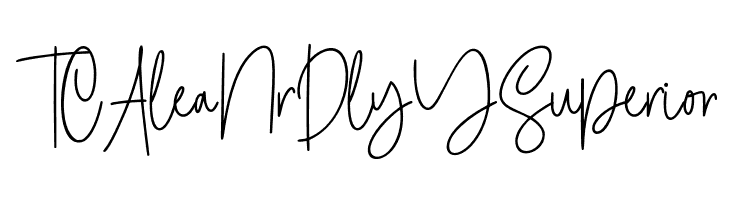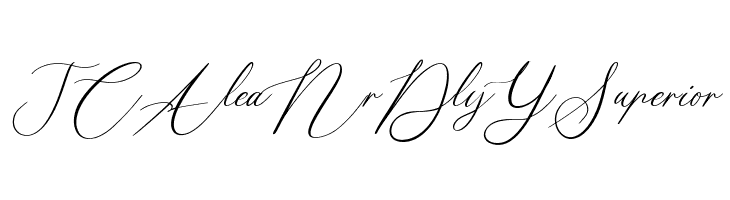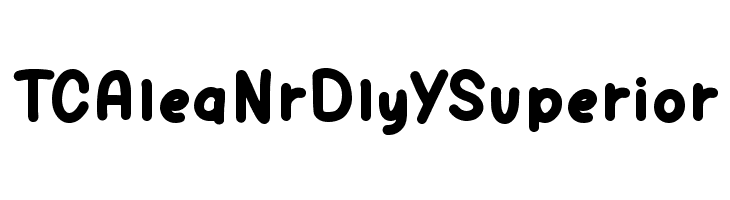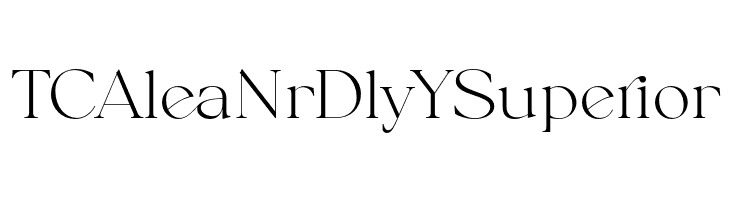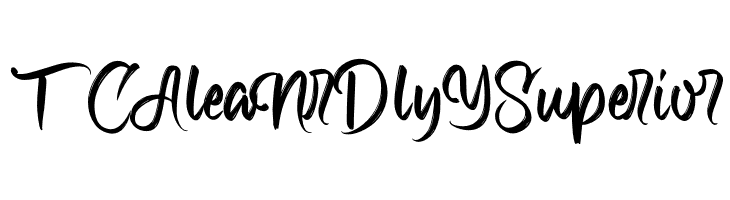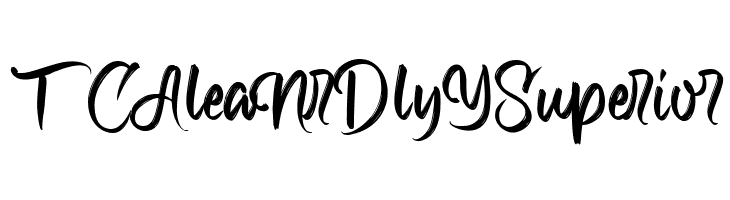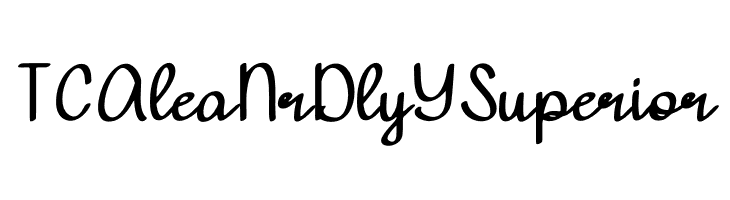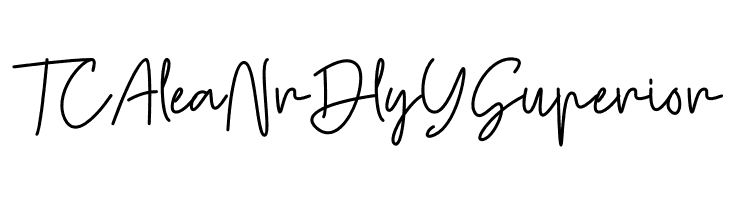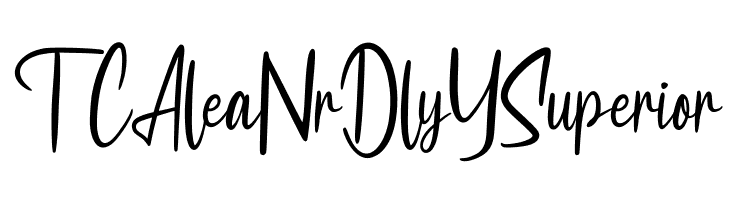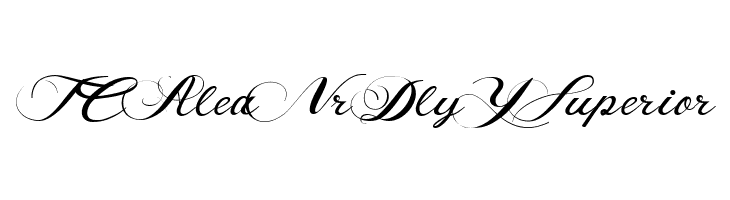
• Callatte
A playful, hand-drawn font with thin, flowing lines and a whimsical style.
• Calledliner
A playful handwritten font with flowing, interconnected letterforms and a casual style.
• Callephane
A playful, handwritten script font with smooth, rounded strokes.
• Callerious Free Regular
A flowing, cursive font with elegant, connected strokes.
• Callesta
A lively, expressive handwritten font with fluid strokes and dynamic style.
• Callesta
A lively handwritten font with fluid, expressive strokes.
• Callesta Swash
An elegant script font with flowing swashes and a handwritten feel.
• CallestaSwash
A flowing, elegant script with delicate swashes and a calligraphic feel.
• Callgios FREE
A bold, dynamic script font with flowing, cursive letterforms.
• CallgiosFREE
A bold, flowing script font with ornate curves and loops.
• Callheart
A cursive, handwritten font with elegant, flowing strokes.
• Calli Cat Regular
A playful, rounded font with bold, smooth curves and a friendly appearance.
• Calliandra-Demo
A playful, elegant script font with smooth, flowing lines and rounded edges.
• Callicotez
A bold, elegant script font with flowing, interconnected characters.
• callidar Regular
An elegant, cursive script font with decorative flourishes and high contrast.
• Callides
A dynamic handwritten font with fluid, expressive strokes and a playful tilt.
• Callie-Mae
A playful, rounded font with a modern and friendly appearance.
• Callie-Mae Bold
A bold, rounded font with a playful and modern aesthetic.
• Callie-Mae Bold Italic
A bold, italicized font with rounded, slightly condensed characters.
• Callie-Mae Italic
A smooth, italic font with rounded edges and a modern, dynamic style.
• Callien Pooh